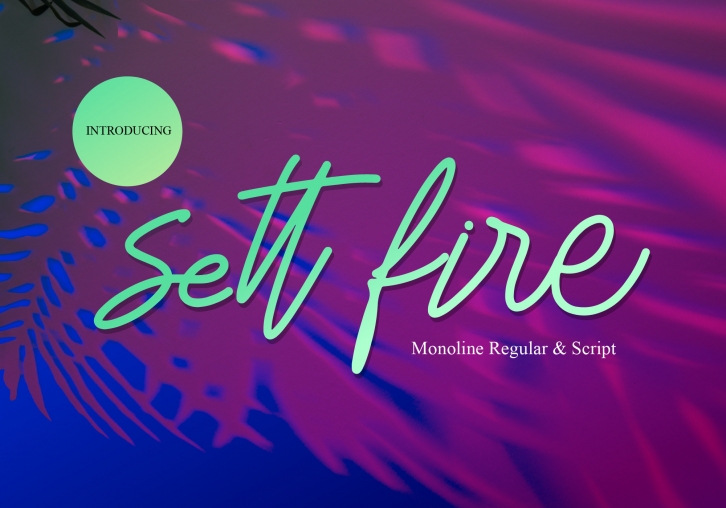
Sett Fire is a free-flowing and slim handwritten font. Its natural and unique style makes it incredibly fitting to a large pool of designs. This font is PUA encoded which means you can access all of the glyphs and swashes with ease!